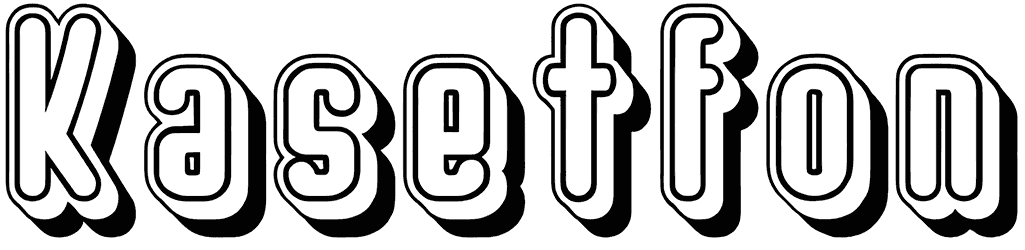
Kasetfon Font
You can convey your message in a modern and vivid manner if you use this poster font for your creative design. The Kasetfon font has interesting characters with a unique outline form, but most punctuation marks are not available. Benefit from this 3D font for your new idea, such as an educational school poster, and capture a lot of attention.